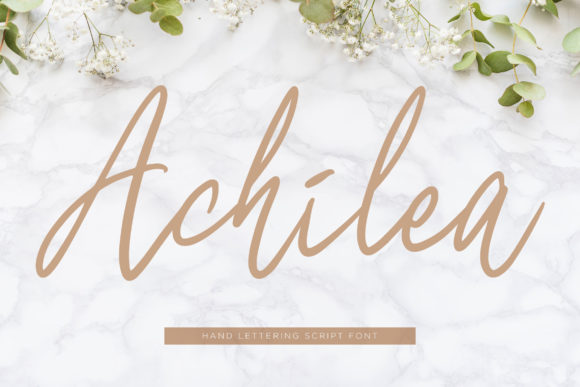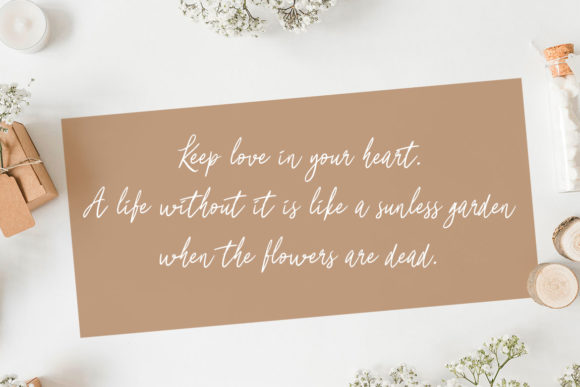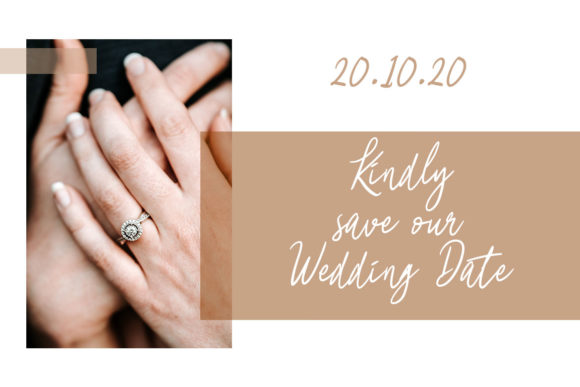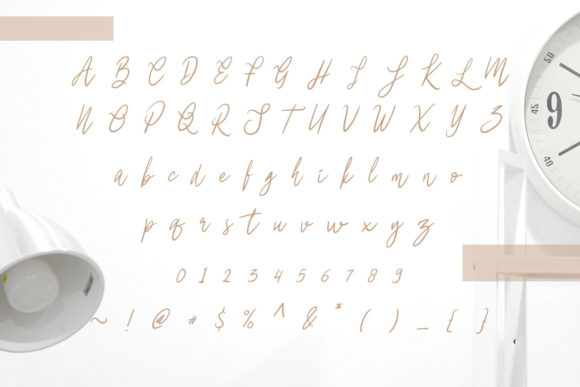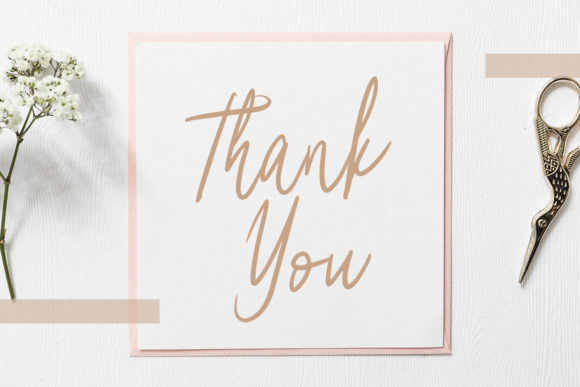
Achilea Font
About Achilea Font
Achilea is a cute and casual handwritten font. Fall in love with its authentic feel and use it to create gorgeous wedding invitations, beautiful stationary art, eye-catching social media posts, and cute greeting cards.